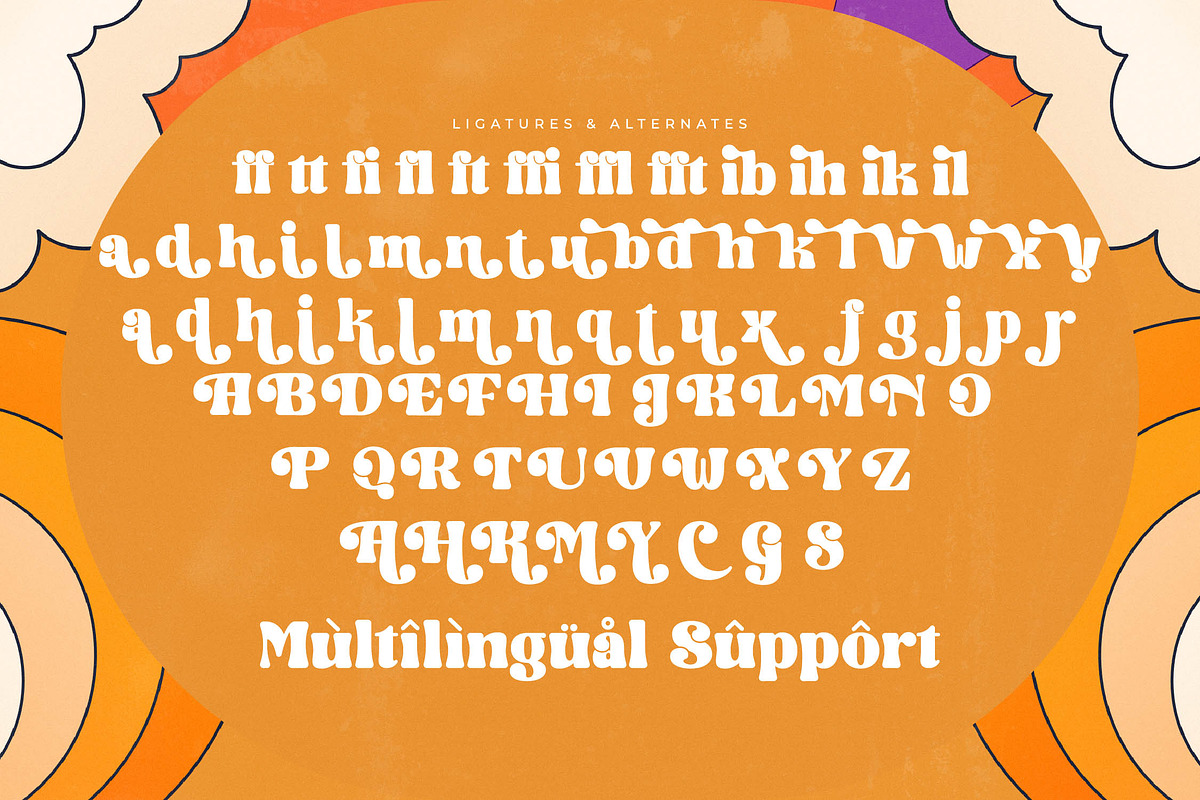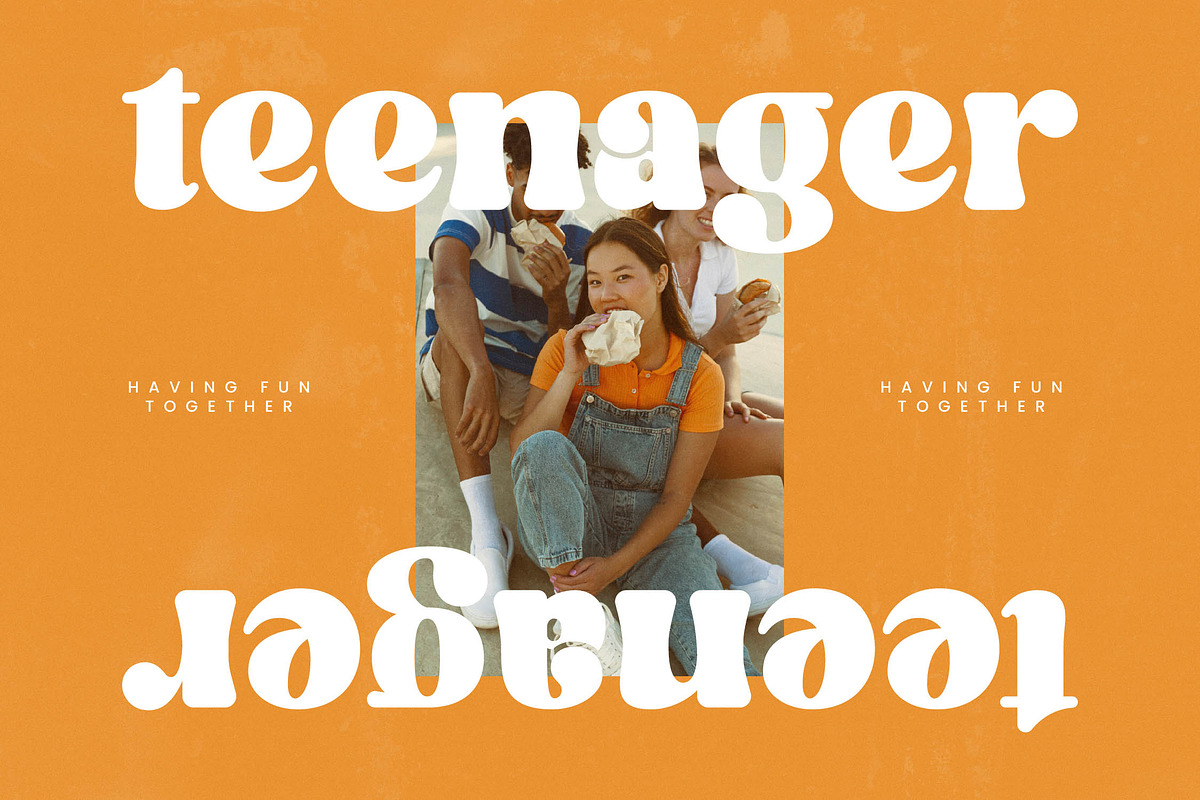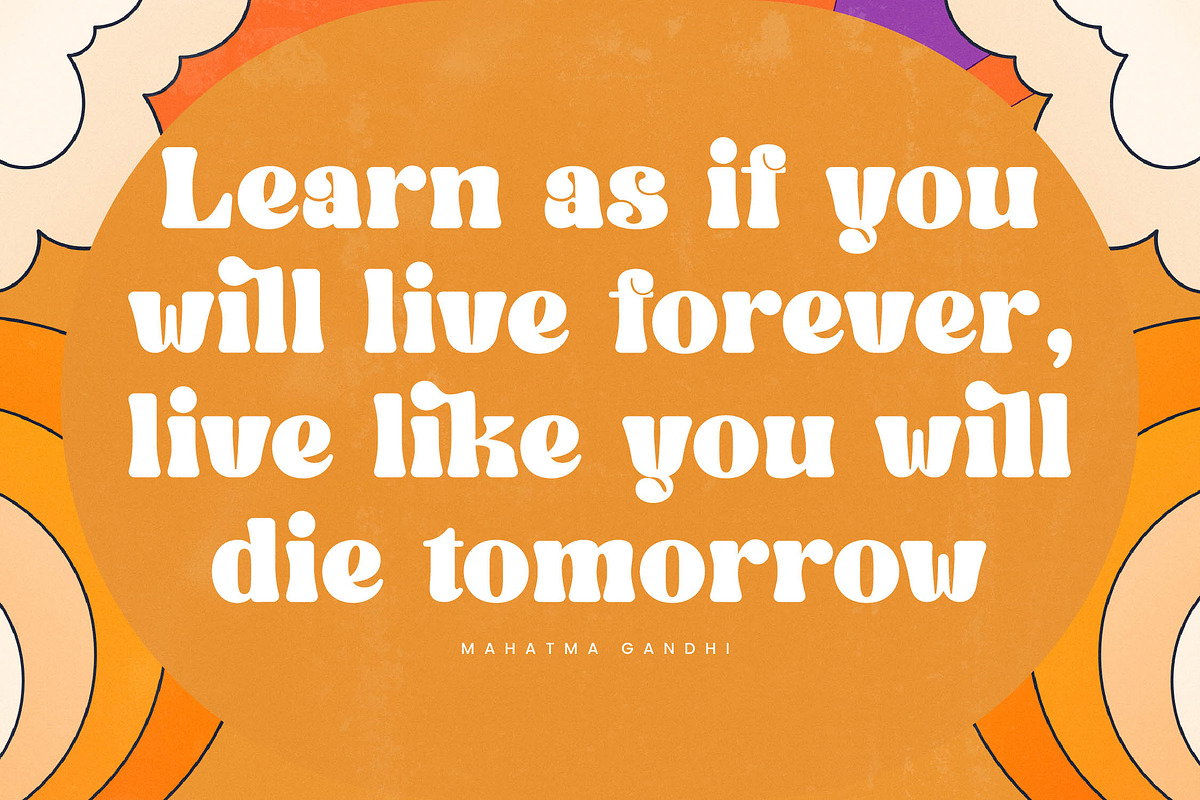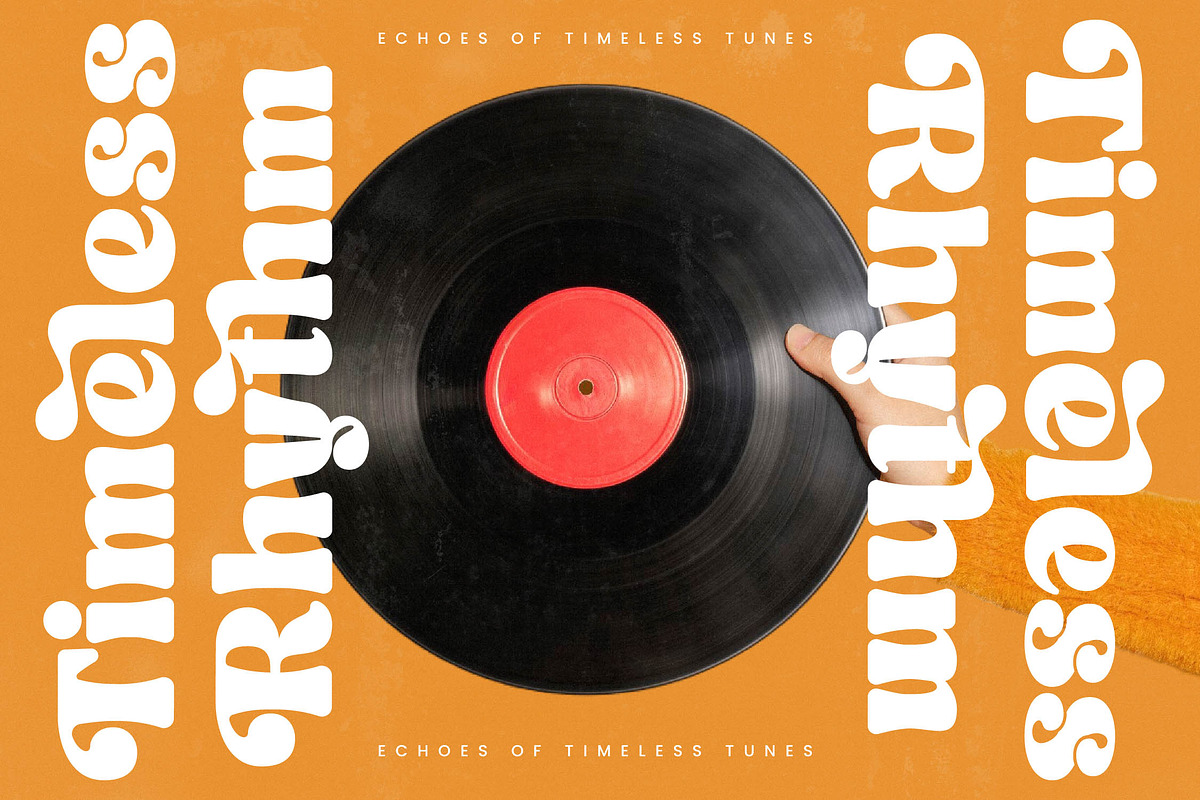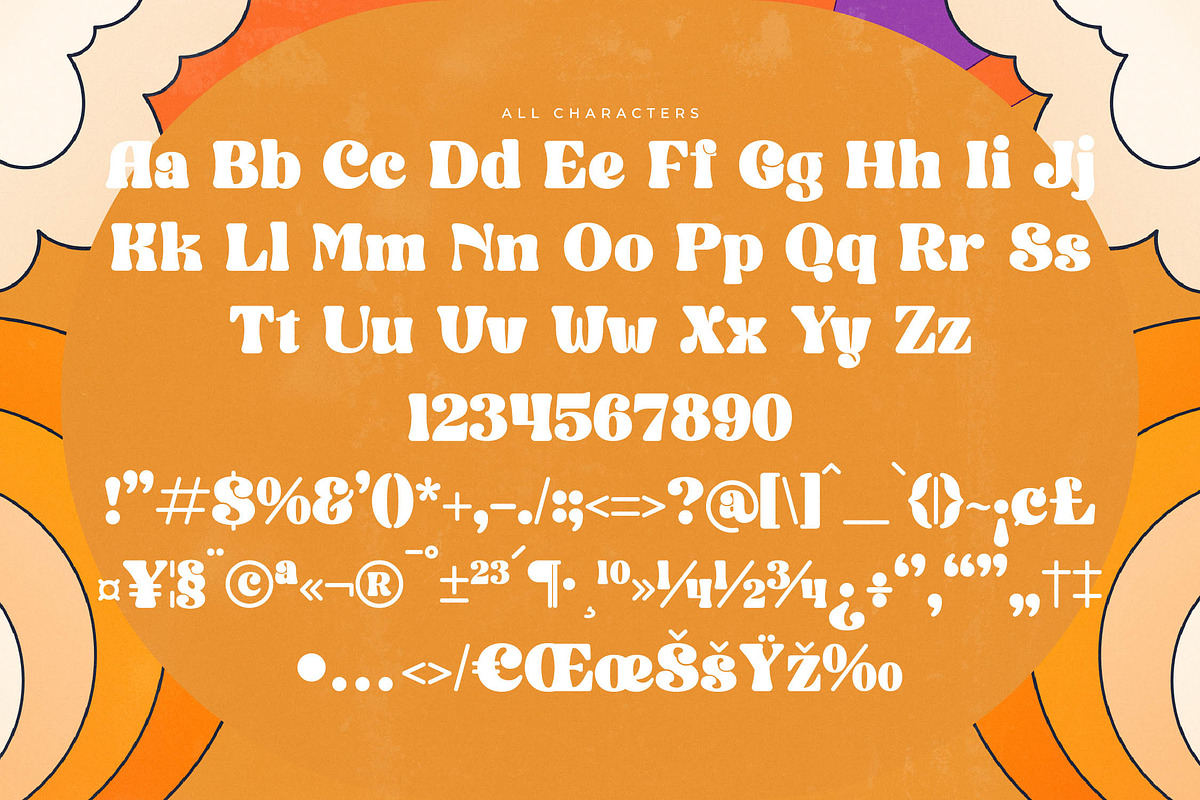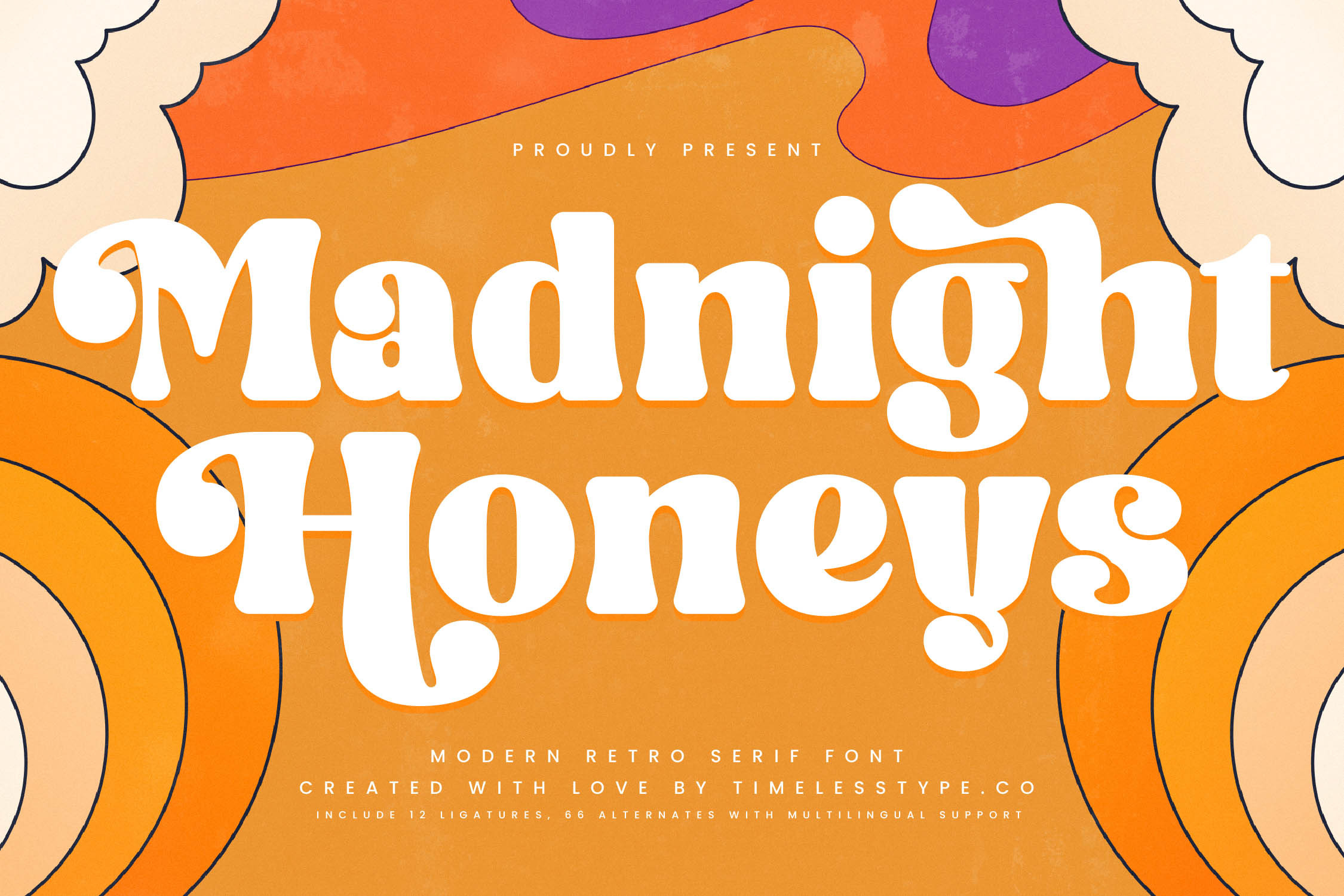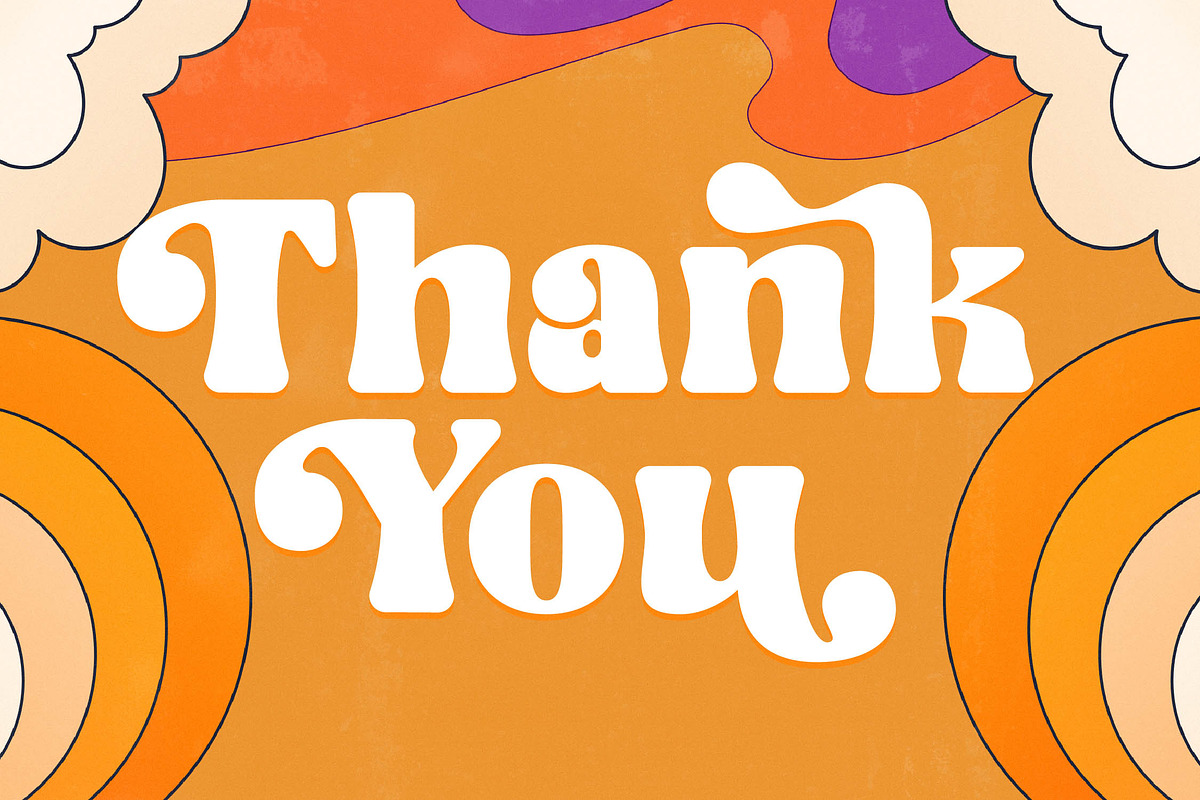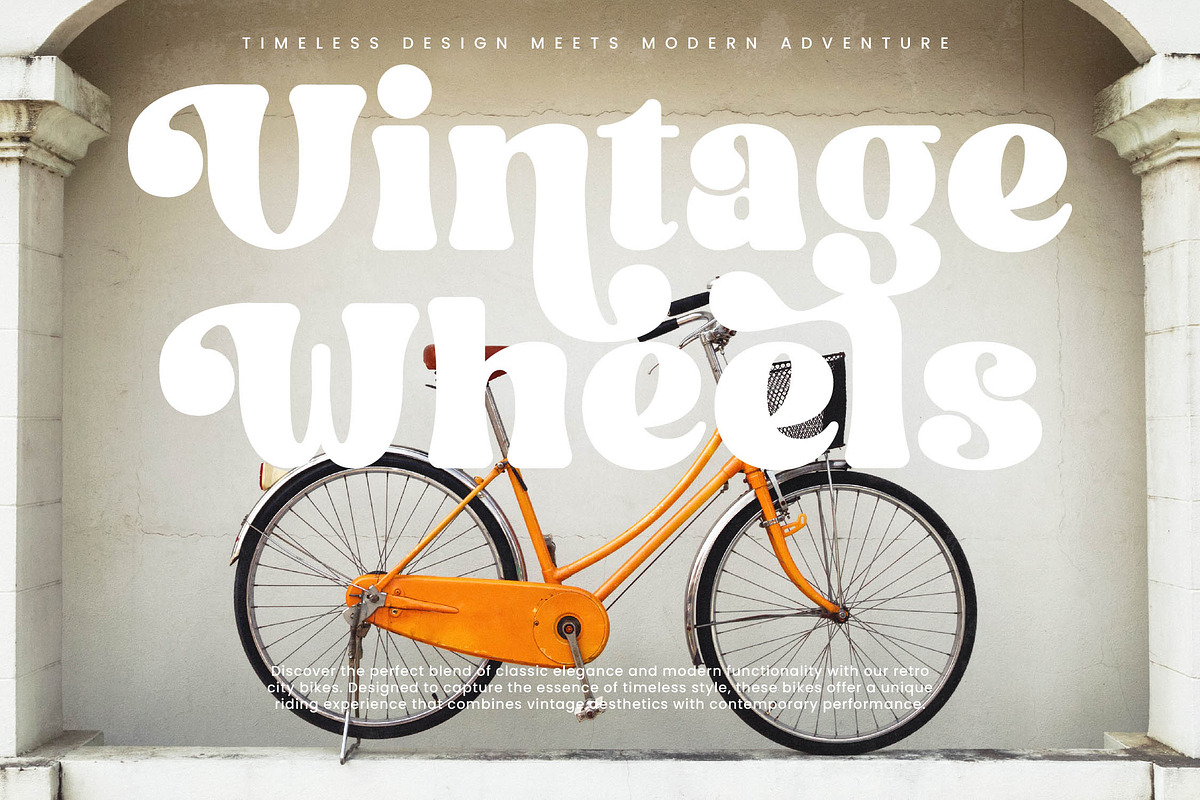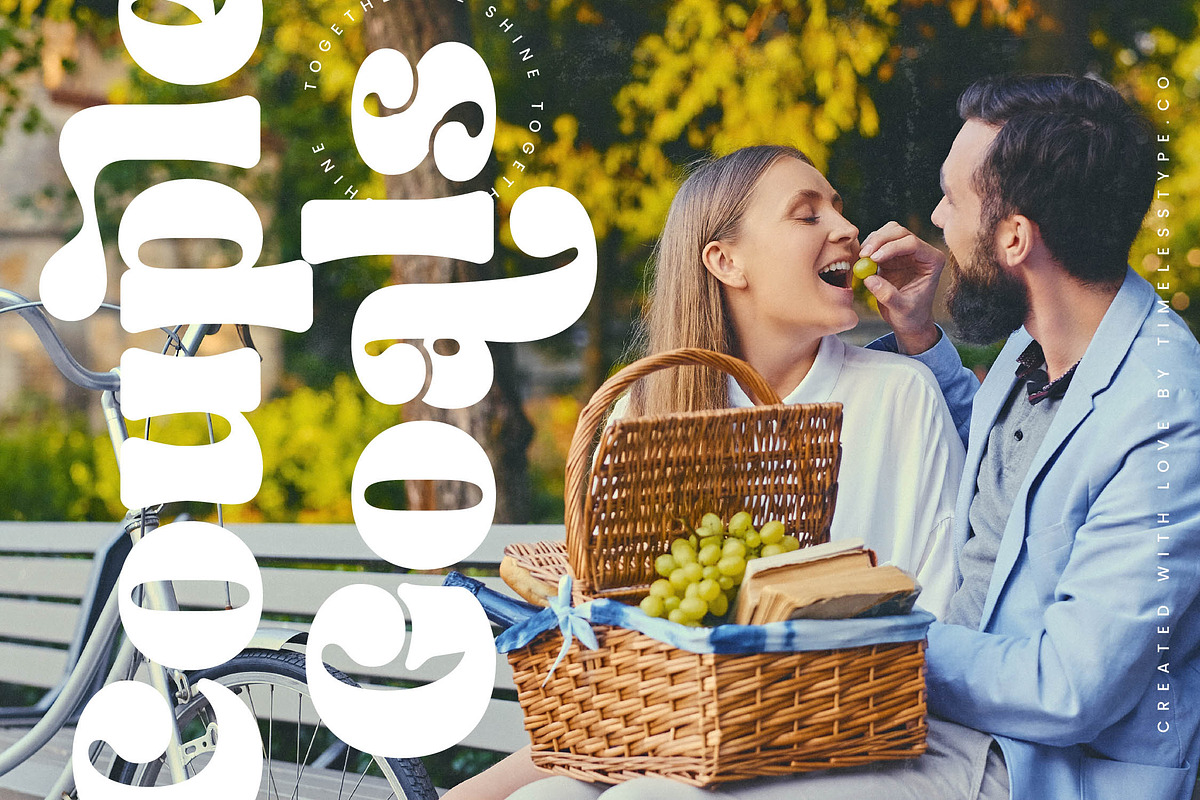
Madnight Honeys Retro Groovy Font
Experience the hypnotic allure of Madnight Honeys, a typeface that dances between vintage nostalgia and contemporary boldness. It captures a whimsical energy that instantly elevates any design project with its unique, flowing rhythm.
Inspired by the psychedelic poster art of the late 1960s and the groovy disco era of the 70s, this font breathes the air of sunset festivals and vinyl records. It visualizes a world of fluid movement and organic, sun-drenched shapes.
With its thick, liquid curves and sharp terminals, this modern serif display brings a powerful branding impact to any canvas. Its high-contrast serif structure ensures a striking luxury typography feel that is both playful and sophisticated, making it a standout editorial font.
Perfectly aligned with the current modern serif trend, this typeface meets the demand for character-driven typography in today's digital landscape. It stands at the forefront of editorial display fonts, offering a refreshing break from minimalist aesthetics.
This versatile typeface is the ultimate choice for standout logo design and vibrant packaging that needs to pop off the shelf. Whether you are working on a high-fashion branding identity, a creative editorial layout, or a romantic wedding invitation with a twist, it delivers unparalleled fashion appeal.
Expand your creative horizons with a rich library of ligatures and alternates that allow for endless customization. With comprehensive multilingual support and a full suite of international characters and expressive swashes, this font is a premium toolkit for global creators.
- Ligature 12 Alternate 66